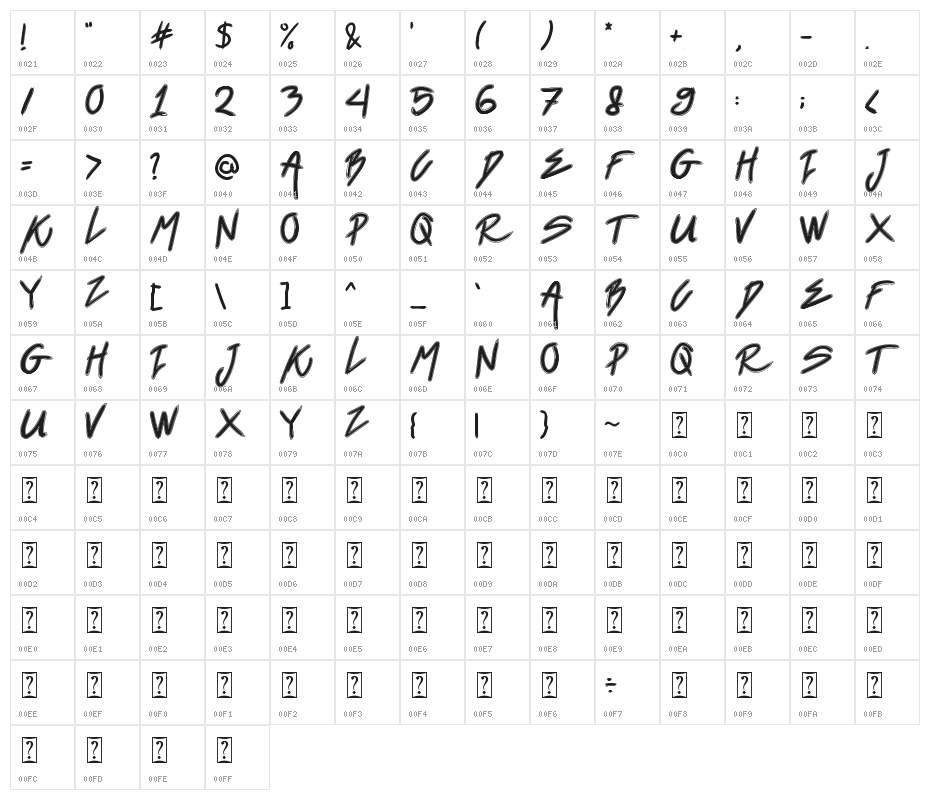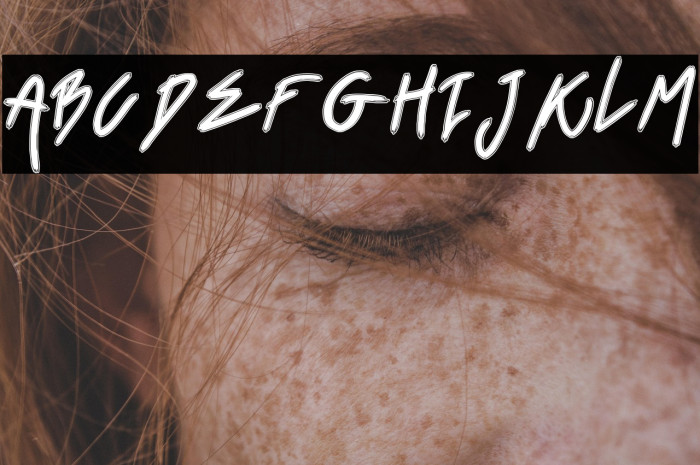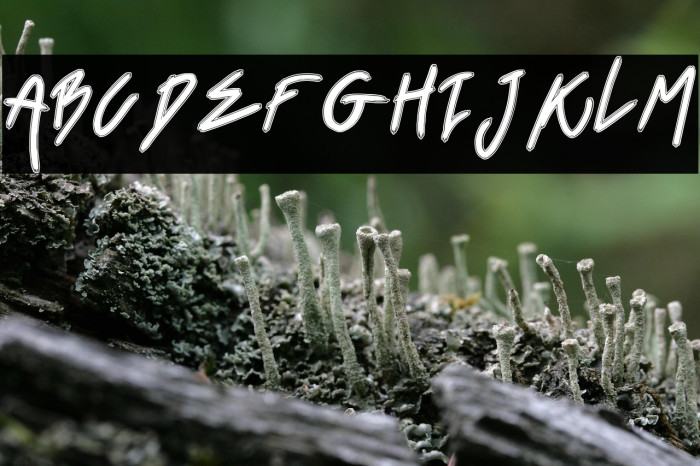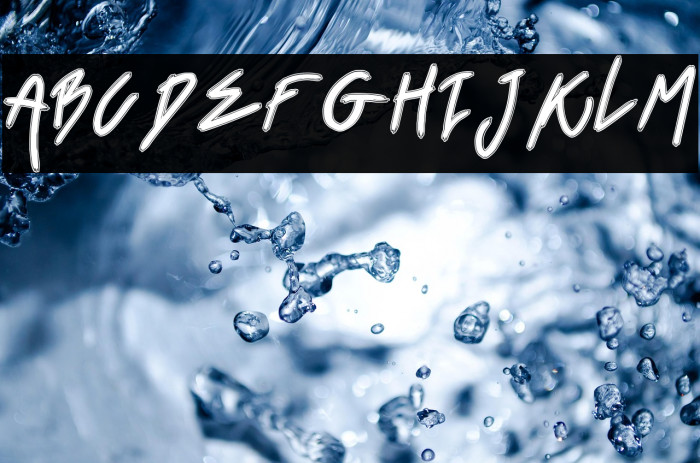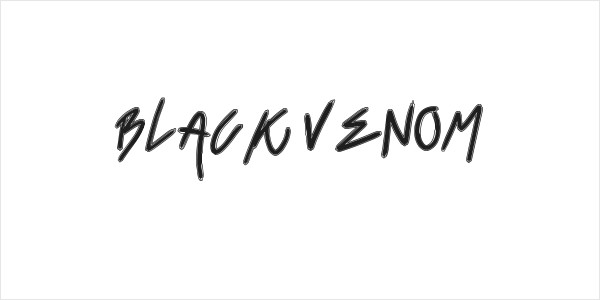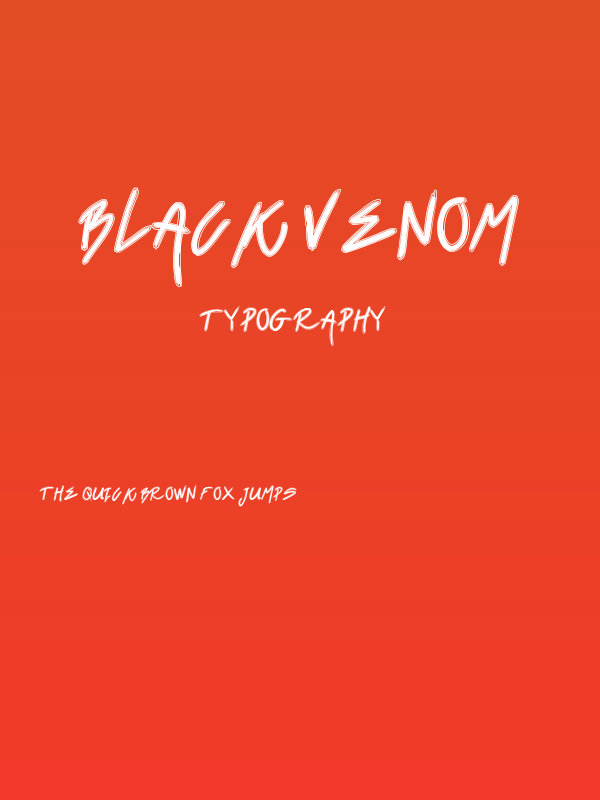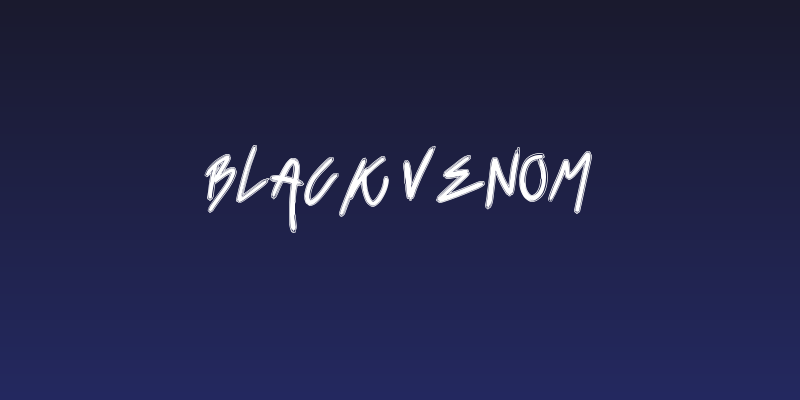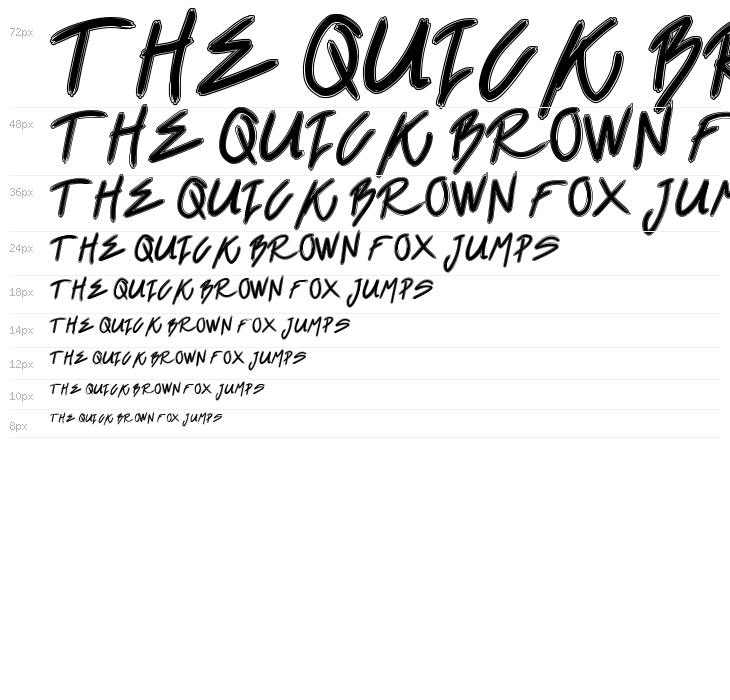
Black Venom Font
Black Venom Description
This font exudes a bold and energetic style, characterized by its dynamic brush strokes and fluid motion. The letters are crafted with a sense of movement, giving them a lively and expressive appearance. The uppercase and lowercase letters maintain a consistent style, with sharp angles and smooth curves that create a sense of urgency and excitement. The numerals and special characters follow the same energetic theme, making them stand out with their bold presence. This font is perfect for projects that require a strong visual impact and a modern, edgy feel.
| Proposed Projects | Ideal for branding, posters, music album covers, and any project needing a modern, edgy aesthetic. |